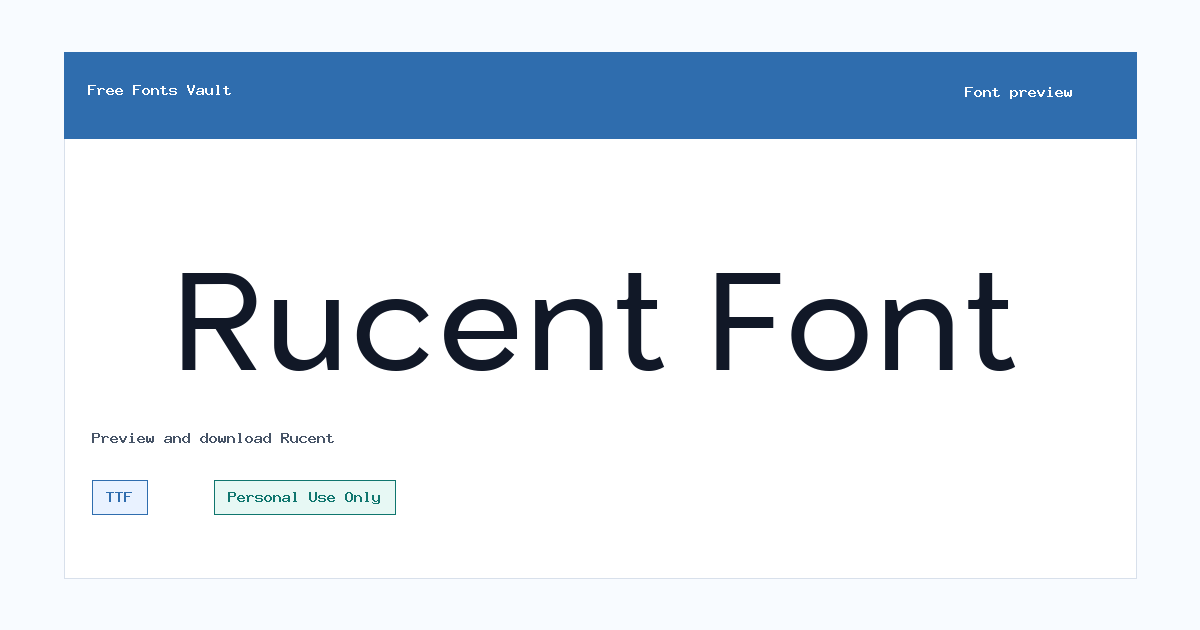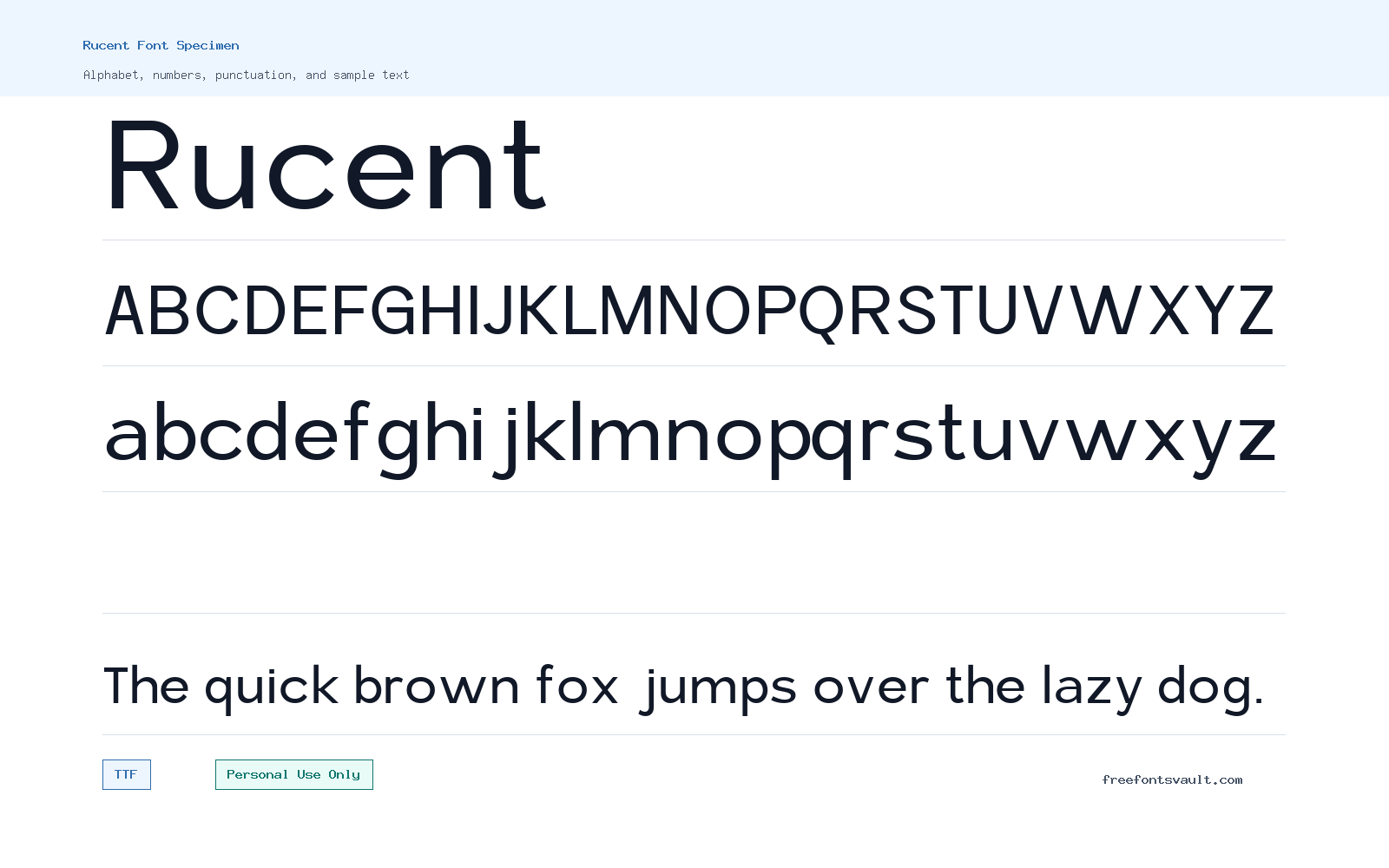
Rucent
- Designer Say Studio
Rucent font.
Rucent is a clean sans serif font family with a regular style and a matching italic demo style, suited to simple display work, branding drafts, and polished personal projects.
About Rucent Font
Rucent has the direct, uncluttered look of a modern sans serif. The regular style keeps the letterforms steady and easy to scan, while the italic version gives you a more angled option for emphasis, short captions, or contrast inside a layout. Because the downloadable files are marked as demo TTF fonts, it is best to treat Rucent as a preview-friendly typeface for testing ideas before you commit to a final design system.
Use the font preview to check your own words before downloading. Try a short brand name, a headline, a menu label, and a sentence with mixed uppercase and lowercase letters. Sans serif fonts can look sharp in headings, but spacing, punctuation, and small-size readability still depend on the actual text you plan to use. Rucent should work best in clean layouts where the type can breathe: title cards, social graphics, portfolio mockups, personal logos, presentation covers, and website hero text. For longer reading, pair it with a quiet text face and keep Rucent for headings, labels, pull quotes, or short blocks. The italic style is useful for contrast, but avoid overusing it in dense paragraphs because angled letters can become tiring when repeated for too long.
- Modern sans serif structure for clean headings and short text
- Personal branding concepts, logo drafts, posters, and social media graphics
- Headlines, captions, portfolio covers, website hero text, and presentation titles
The designer is listed as Say Studio. No separate foundry information or designer link is included in the font listing.
Test both the regular and italic styles with your actual wording. Check uppercase, numbers, punctuation, and small sizes before using the font in a finished design. For balanced layouts, pair Rucent with a neutral serif or highly readable body sans, and keep generous spacing around headlines.
Who designed Rucent?
Rucent is credited to Say Studio.
What is Rucent best used for?
It is best suited to clean personal-use design work such as headings, logo drafts, social graphics, portfolio titles, posters, and presentation covers.
Should I use Rucent for long paragraphs?
Test it first, but it is safer to use Rucent for short text and headings, then pair it with a highly readable body font for longer passages.